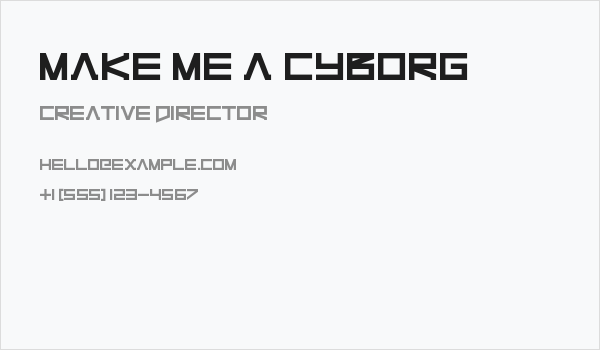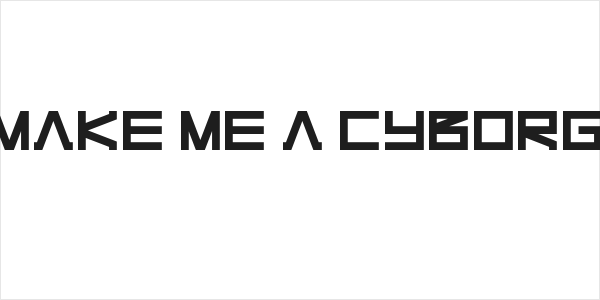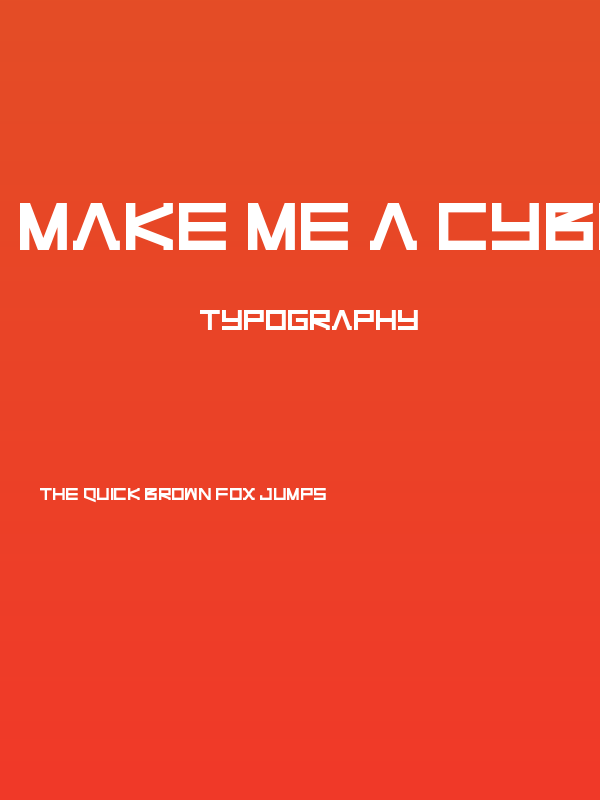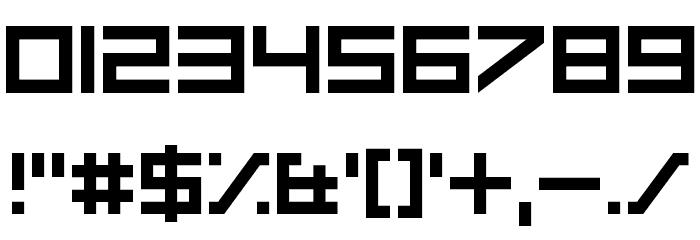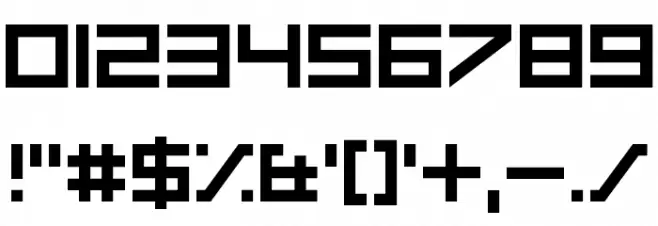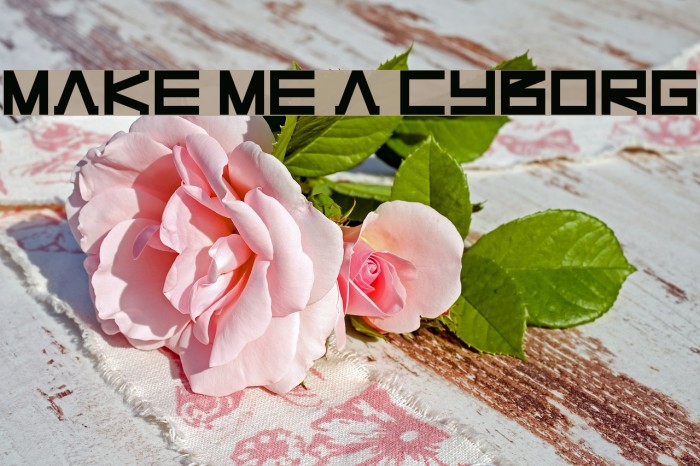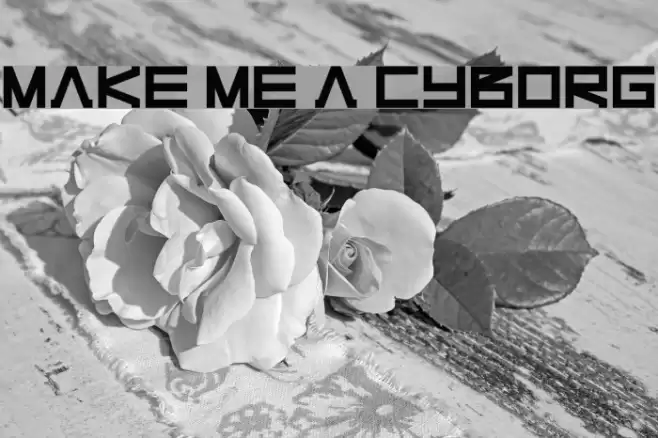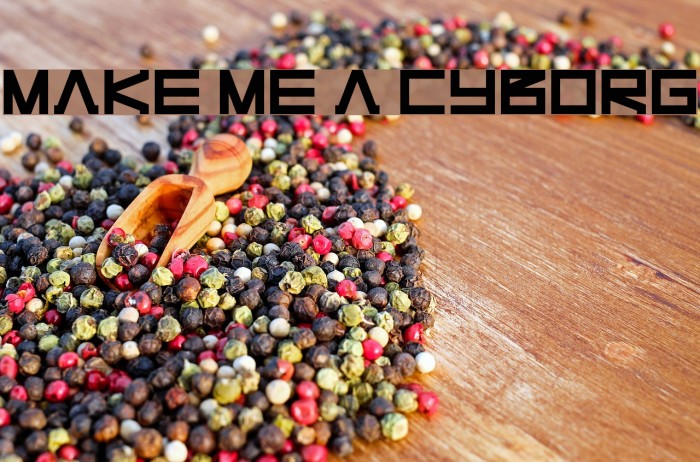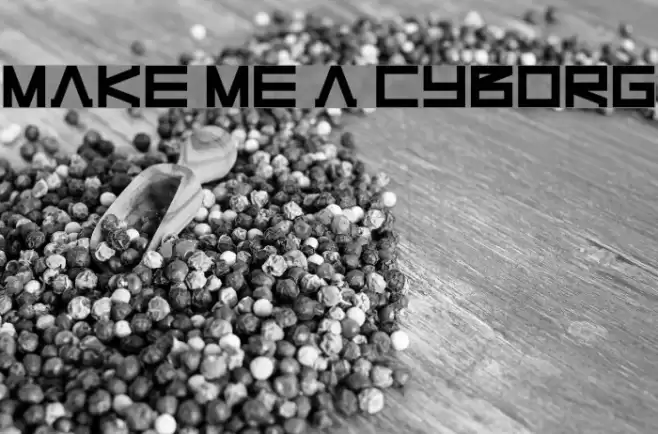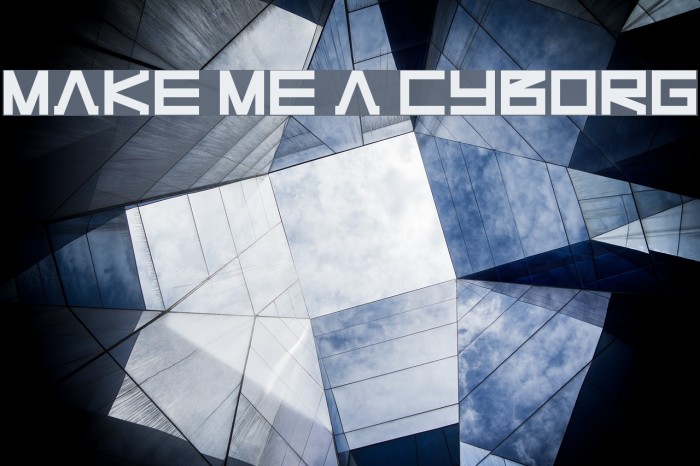
Make Me A Cyborg Font
| 全体的なスタイル | Futuristic |
| おすすめプロジェクト | Ideal for sci-fi themed designs, tech branding, video game interfaces, and futuristic posters. |